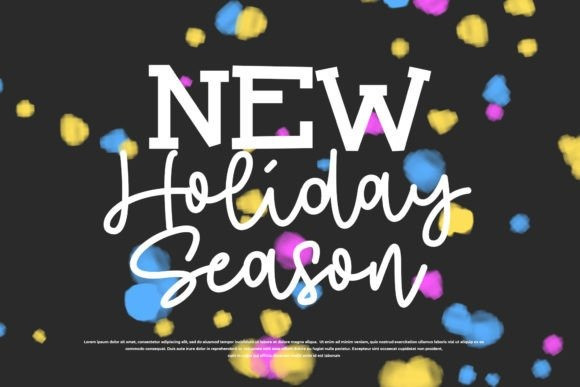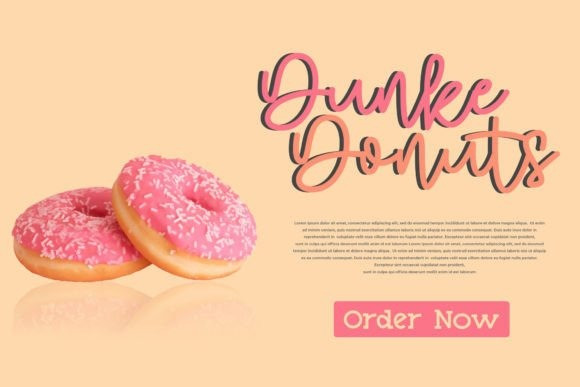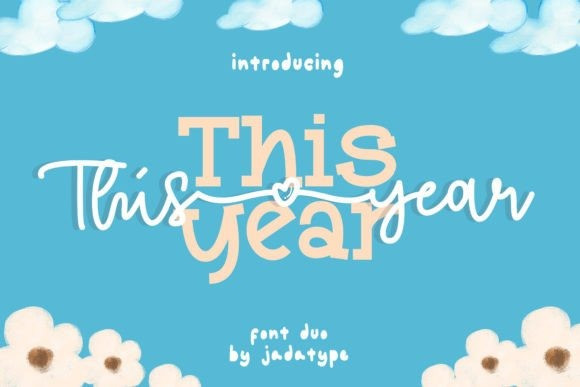
This Year Handwriting Font
This Year Handwriting Font is a fun and quirky font duo combining a friendly serif with an adorable script. Fall in love with its incredibly distinct and timeless style and use it to create spectacular designs!